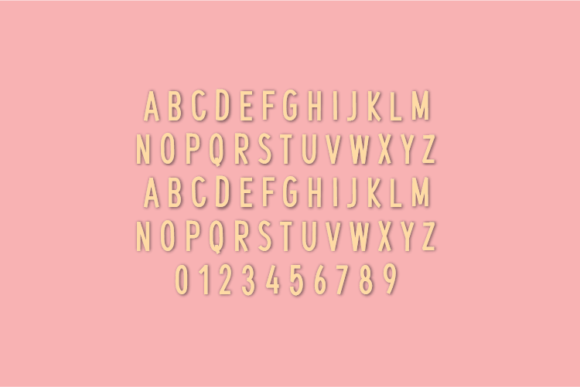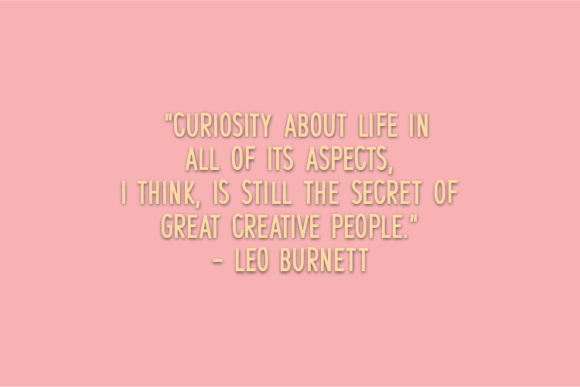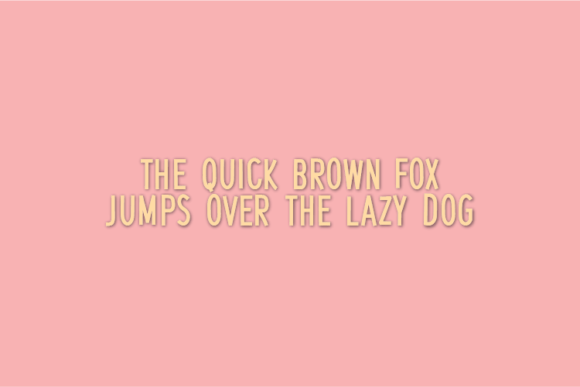
Unlock Your Creativity with the Stunning Gorgeous Font
You know that moment when you’re working on a project and you need the perfect font to elevate it to the next level? The cursor blinks, and you start scrolling through your font library, hoping to find that one special something that will make your design pop. It’s a moment of pure creative agony, but don’t worry, we’ve got the solution for you.
Enter the Gorgeous Font, a unique and captivating sans serif font that’s perfect for quotes, notes, T-shirts, and so much more. Its beauty lies in its simplicity, making it a versatile choice for designers who want to add a touch of elegance to their projects.
With the Gorgeous Font, you’ll be able to create outstanding designs that leave a lasting impression. Its value lies in its ability to add a personal touch to any project, making it a must-have for designers who want to stand out from the crowd.
Gorgeous Font Key Features
- Font Family: Gorgeous Font is a modern sans-serif font family designed for digital use. It is available in 6 weights (Thin, Light, Regular, Medium, Bold, and Black).
- Unique Characteristics: Gorgeous Font features a unique blend of modern and elegant design elements, including clean lines, rounded corners, and subtle flair at the terminals.
Gorgeous Font Review
Overall, I have mixed feelings about the Gorgeous Font. While it has some redeeming qualities, there are also some limitations that might make it less than ideal for certain projects.
- Beautiful, high-quality design: The font is indeed gorgeous, with intricate details and a touch of elegance.
- Wide character set: The font includes a wide range of characters, including accents and symbols, making it suitable for use in multiple languages.
- Good legibility: At larger font sizes, the font is quite legible, making it a good choice for body text.
- Limited font weight range: The font only comes in two weights, which can make it difficult to create a visually appealing hierarchy.
- Not ideal for small text: At smaller font sizes, the font can become difficult to read due to its intricate details.
- Not suitable for headings: The font is not bold or dramatic enough to make a strong statement as a heading font.
The Gorgeous Font is a beautiful addition to any design project, but it’s not without its limitations. While it’s great for body text and general use, it may not be the best choice for headings or small text. Ultimately, it depends on the specific needs of your project.
Gorgeous Font is ideal for:
- Print materials, such as business cards and brochures.
Use Gorgeous Font to add a touch of